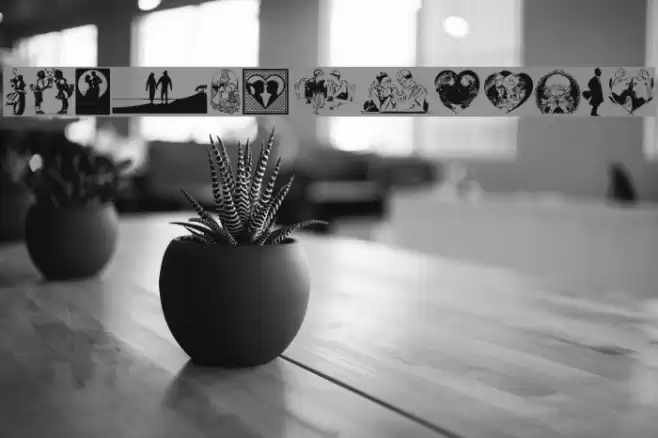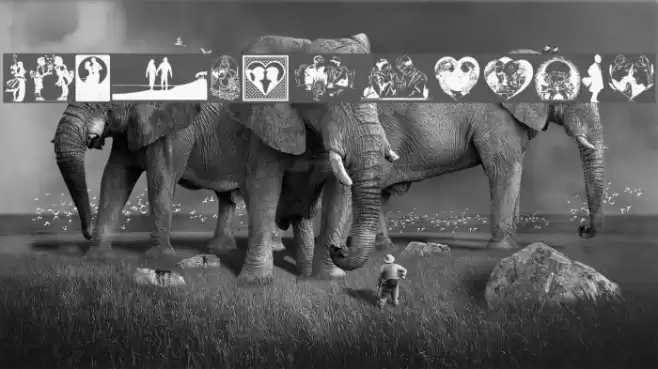
LM Romantix Font
LM Romantix Description
This font is a decorative collection of romantic-themed illustrations rather than traditional alphanumeric characters. Each character is represented by a unique image depicting scenes of romance, love, and companionship. The images are detailed and artistic, capturing various expressions of affection and connection. The style is reminiscent of vintage romance comics, with a focus on storytelling through imagery. The characters are framed within rectangular borders, emphasizing their individuality and artistic value. This font is not suitable for standard text but serves as a creative tool for design projects that require a romantic or nostalgic touch.
A decorative font featuring romantic-themed illustrations in a vintage comic style from Uncategorized fonts.
- Proposed Projects: Ideal for wedding invitations, Valentine's Day cards, romantic posters, and themed graphic design projects.
- Overall Style: Vintage, Decorative
- Use Case: Logos, Decorative elements